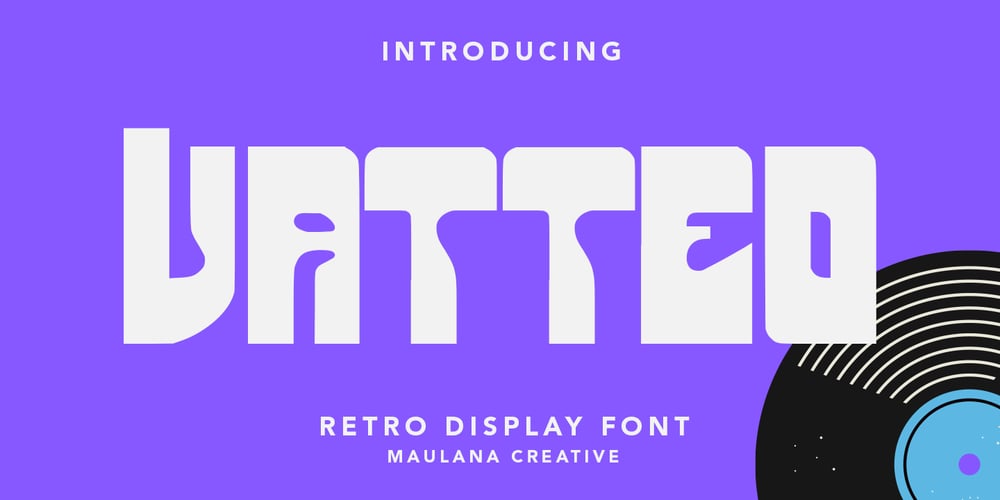
MC Vatteo Font Family was designed by Gilang Maulana and published by Maulana Creative. MC Vatteo contains 1 styles and family package options. Vatteo is a retro decorative display font. Bold stroke, fun character with a bit of ligatures and alternates. To give you an extra creative work. Vatteo font support multilingual more than 100+ language. This font is good for logo design, Social media, Movie Titles, Books Titles, a short text even a long text letter and good for your secondary text font with script or serif. Make a stunning work with Vatteo font.Cheers,Maulana Creative